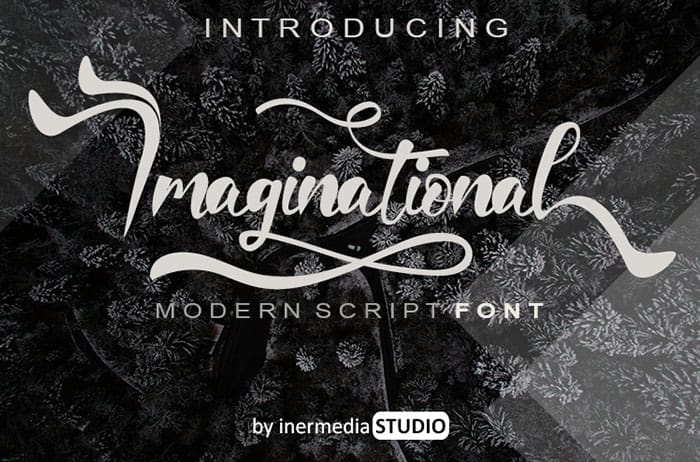
Imaginational Calligraphy Font
Imaginational magical calligraphy font carefully created with a touch of elegance. This font perfect fit for all of your logos, branding, social media, and crafty DIY projects. Designed this font by Inermedia Studio. You can also search more freeĀ Calligraphy Fonts.